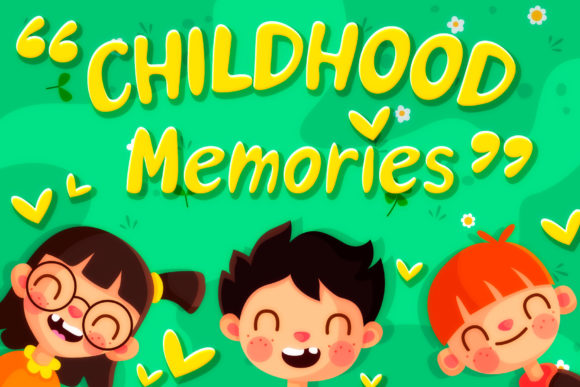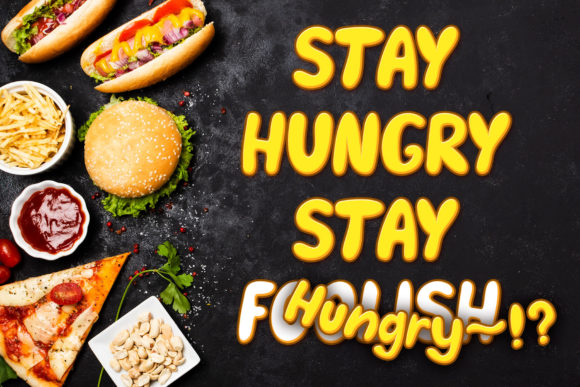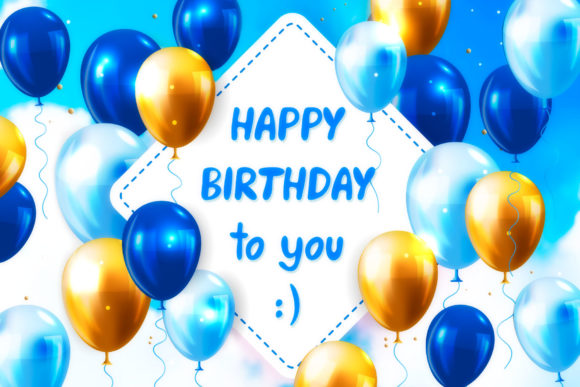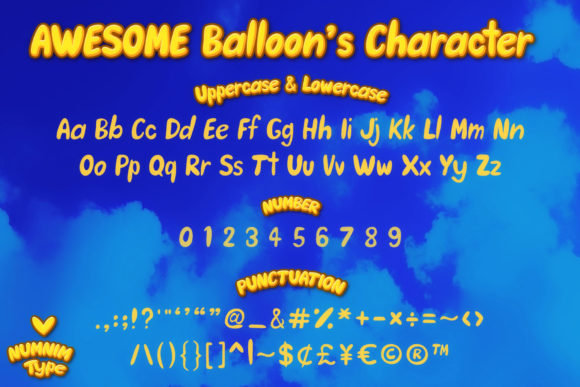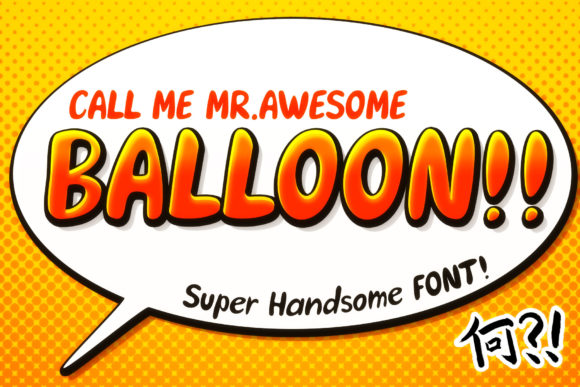
Awesome Balloon Font: Add a Touch of Whimsy to Your Designs
Are you looking for a font that embodies fun, playfulness, and authenticity? Look no further than the Awesome Balloon font! This delightful font is perfect for designers and crafters who want to add a touch of whimsy to their designs. With its childlike style, Awesome Balloon is sure to brighten up any project and bring a smile to your audience’s faces.
The Characteristics of Awesome Balloon Font
Awesome Balloon font is a unique and playful typeface that is reminiscent of childhood memories. Its distinctive features include:
- Rounded and soft edges, giving it a friendly and approachable feel
- A bouncy and irregular shape, adding to its playful and whimsical nature
- A wide range of lettering styles, from bold and chunky to thin and delicate
Using Awesome Balloon Font in Your Designs
Awesome Balloon font is incredibly versatile and can be used in a variety of design projects, including:
- Party invitations and decorations: Add a touch of fun and playfulness to your party designs with Awesome Balloon font.
- Children’s book illustrations: Bring your storybook characters to life with the whimsical and childlike style of Awesome Balloon font.
- Branding and packaging: Use Awesome Balloon font to add a playful and youthful touch to your brand’s identity.
- Crafting and DIY projects: Add a personal and handmade touch to your crafting and DIY projects with Awesome Balloon font.
Tips for Getting the Most Out of Awesome Balloon Font
To get the most out of Awesome Balloon font, try the following tips:
- Mix and match different lettering styles to create a unique and playful look.
- Use Awesome Balloon font in combination with other fonts to create a visually appealing contrast.
- Don’t be afraid to get creative and try new things – Awesome Balloon font is all about having fun and being playful!
Why Choose Awesome Balloon Font?
So why choose Awesome Balloon font for your next design project? Here are just a few reasons:
- It’s fun and playful: Awesome Balloon font is the perfect way to add a touch of whimsy and fun to your designs.
- It’s versatile: Use Awesome Balloon font in a variety of design projects, from party invitations to branding and packaging.
- It’s easy to use: With its simple and intuitive design, Awesome Balloon font is easy to use and customize.
- It’s authentic: Awesome Balloon font has a unique and authentic style that will set your designs apart from the crowd.
In conclusion, Awesome Balloon font is a unique and playful typeface that embodies fun, playfulness, and authenticity. With its childlike style and versatile design, it’s the perfect choice for designers and crafters who want to add a touch of whimsy to their designs. So why not give Awesome Balloon font a try and see how it can brighten up your next design project?
Get Creative with Awesome Balloon Font!
Ready to get creative with Awesome Balloon font? Here are some inspiring ideas to get you started:
- Create a custom party invitation with Awesome Balloon font and bright, bold colors.
- Design a whimsical children’s book illustration with Awesome Balloon font and playful characters.
- Use Awesome Balloon font to create a unique and eye-catching brand identity for your business.